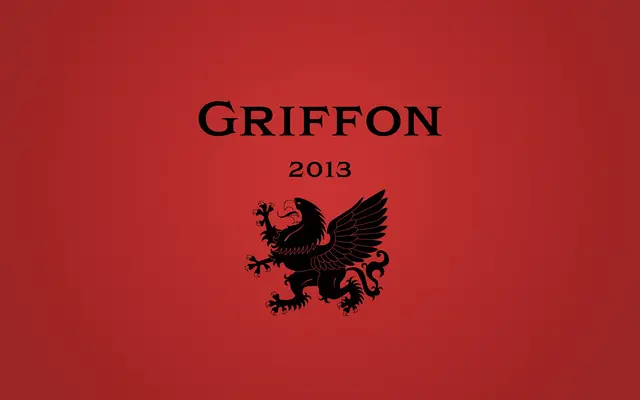
A titling serif with five weights and small caps, drawn from early 20th-century letterform conventions for headline and branding use.
Griffon is a display serif family built around classic proportions reminiscent of type from the 1900s to 1930s. Five weights from Light to Bold each include small caps, giving designers some typographic range within what is otherwise a purely display-oriented family. Best suited to masthead work, packaging and identities that want a period-influenced gravitas without resorting to outright revival.
A titling serif with classic early 20th-century proportions, designed explicitly for headline and display use rather than continuous text setting.